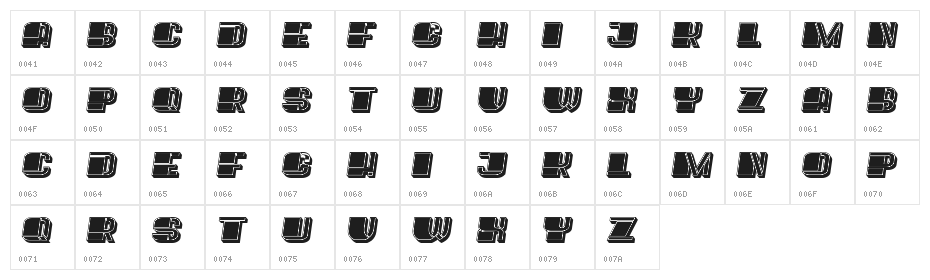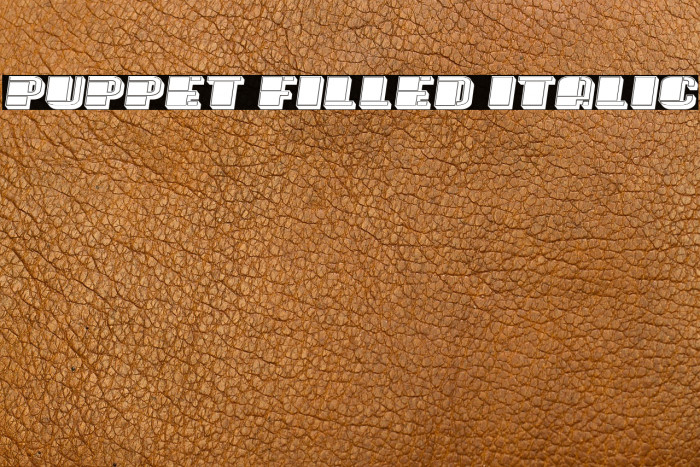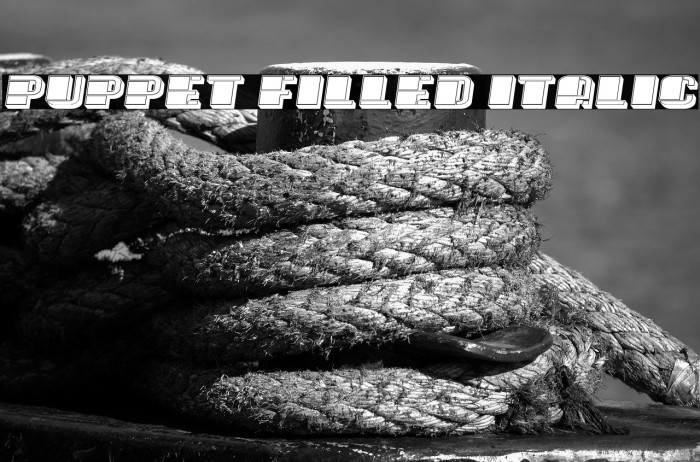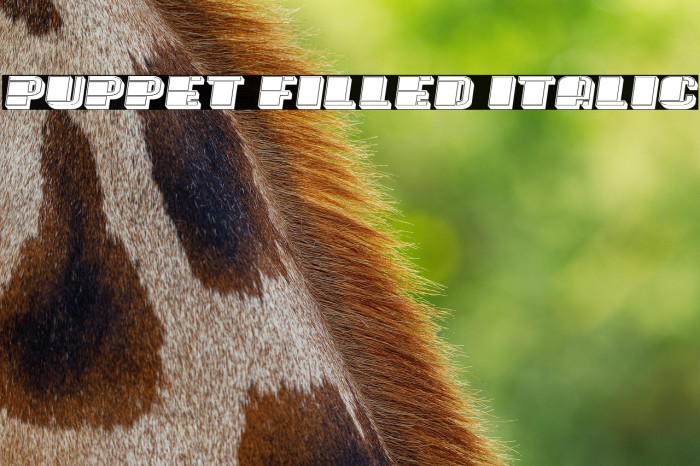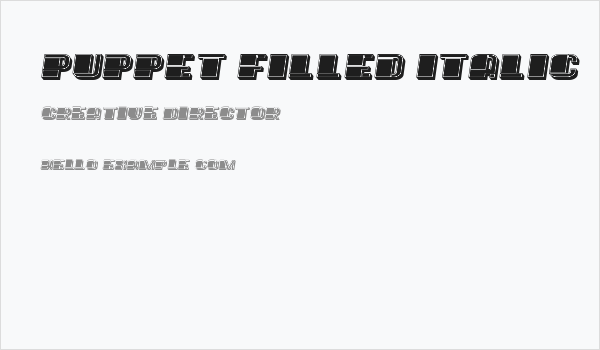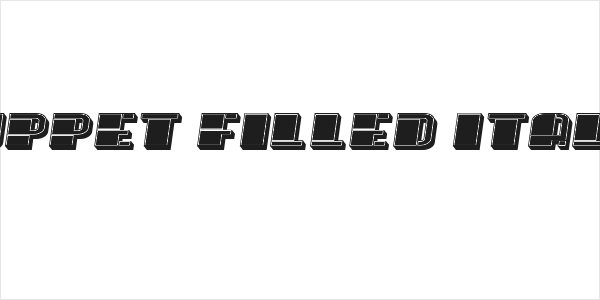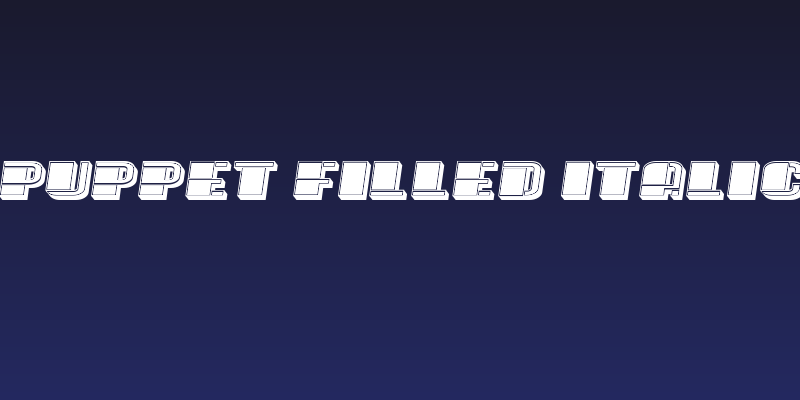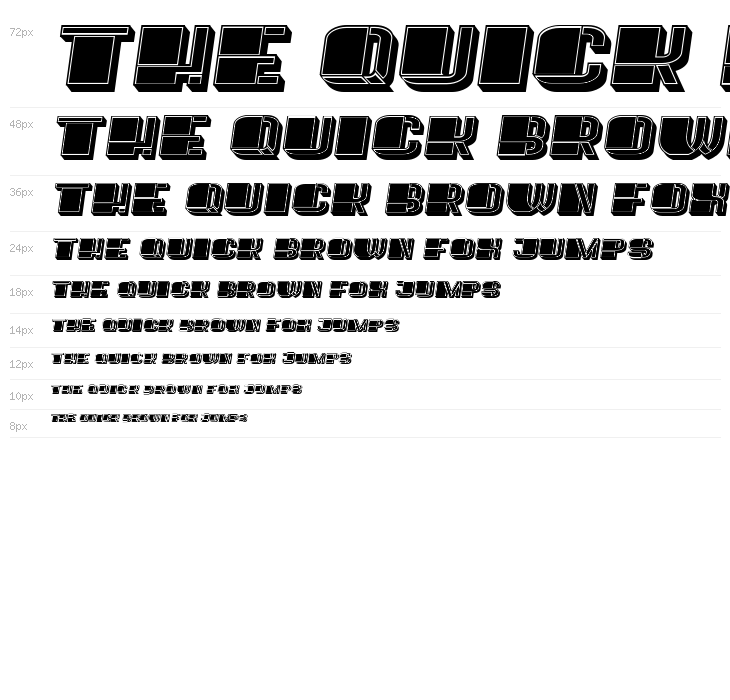
Puppet Filled Italic Font
Puppet Filled Italic Description
This font features a bold and dynamic style with a filled, three-dimensional appearance. The characters are designed with a strong, block-like structure, giving them a robust and impactful presence. The italic slant adds a sense of motion and energy, enhancing its visual appeal. The font's thick strokes and shadowed effect create a sense of depth, making it stand out in any design. Its unique style is perfect for projects that require a bold statement or a modern, edgy look.